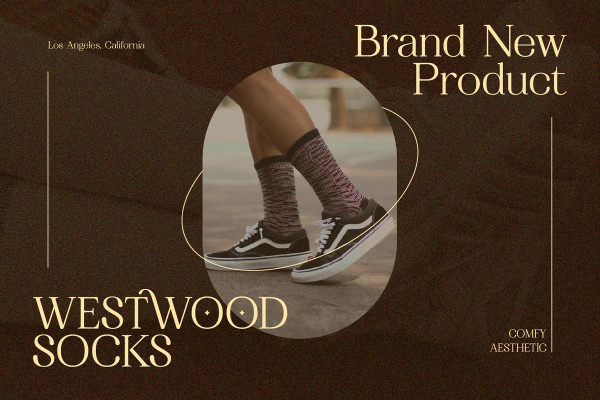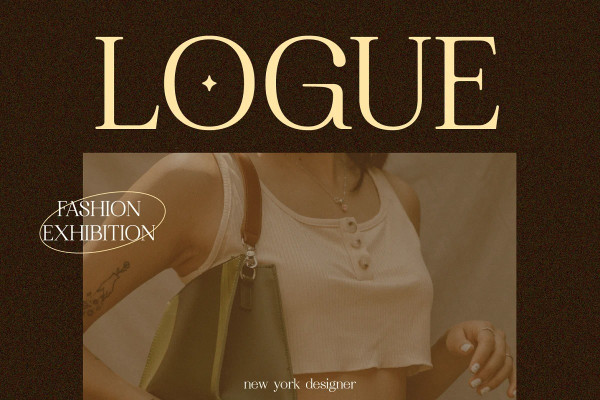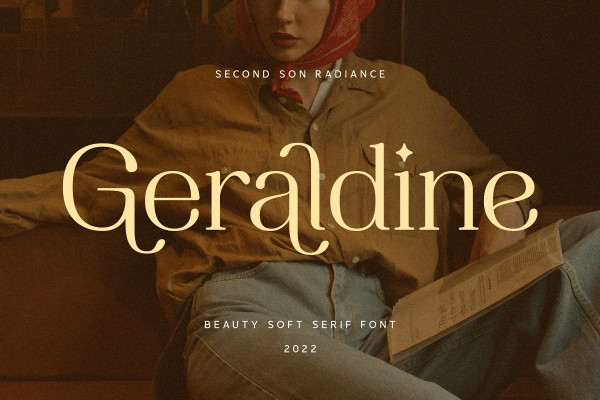
Geraldine Font
Geraldine Font is a beauty modern soft serif font with alternatives, ligatures, and multilingual support. Perfect for editorial projects, logo design, clothing branding, product packaging, magazine headers, or simply as a stylish text overlay to any background image.